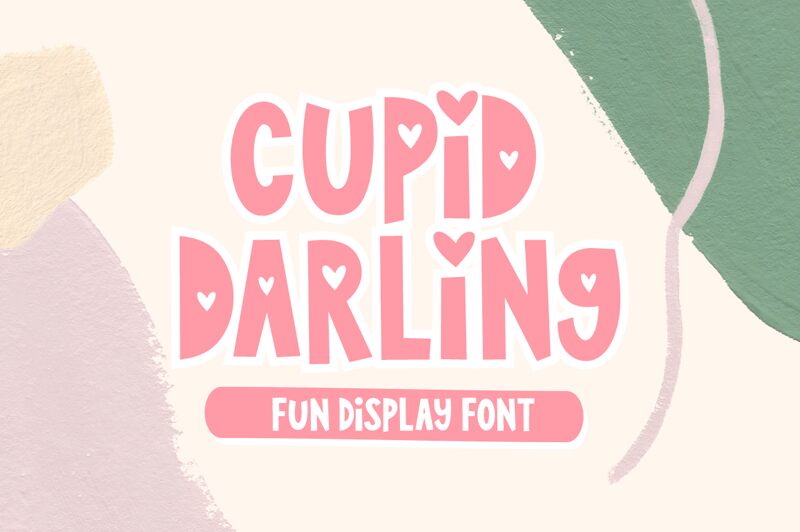
Cupid Darling, the cheeky cartoon display font by ReyreyBlue is a perfect fit for your fun and playful projects! With its bold weight and condensed width, it packs a punch while still being easy to read. This font is ideal for children's books, greeting cards, invitations, and anything that needs a touch of whimsy. The playful style of Cupid Darling will make your designs stand out from the crowd and bring a smile to anyone's face. So why not add some love to your next project with Cupid Darling?
Cupid Darling